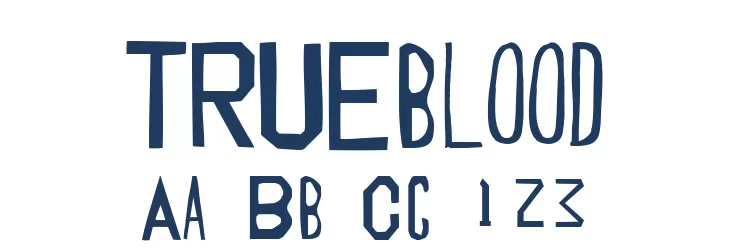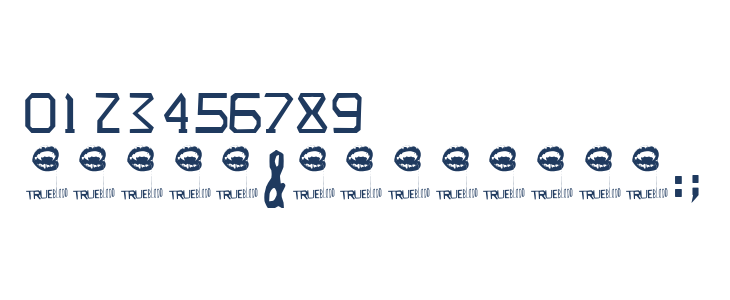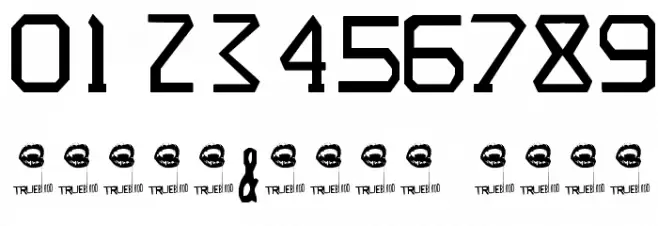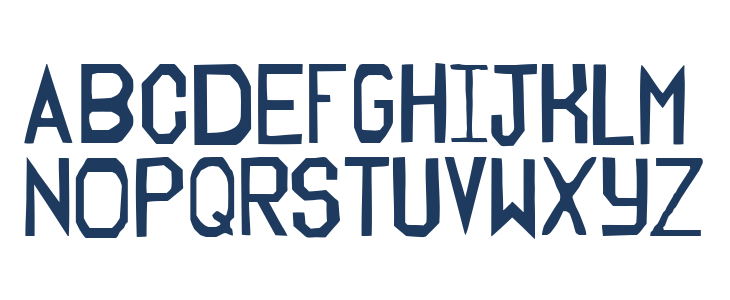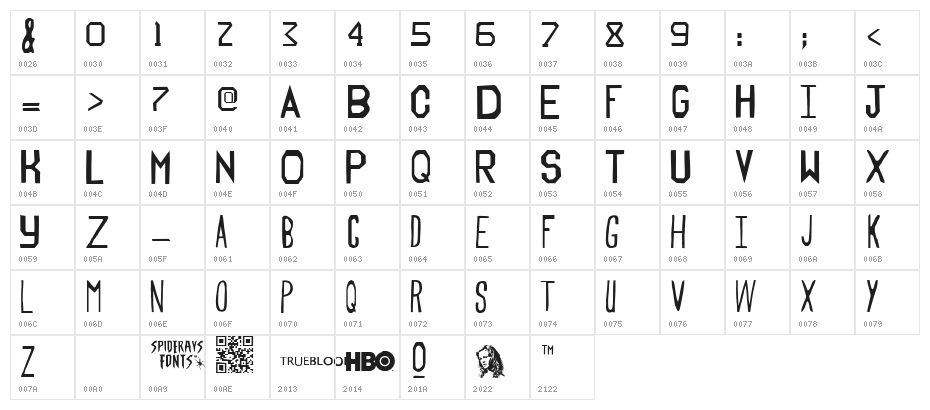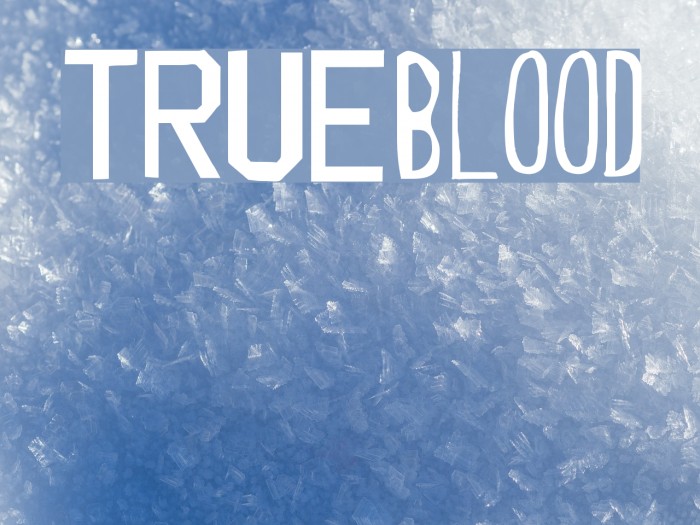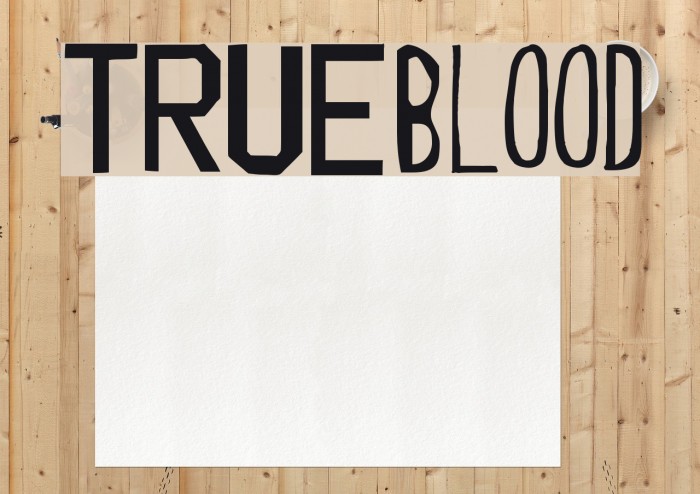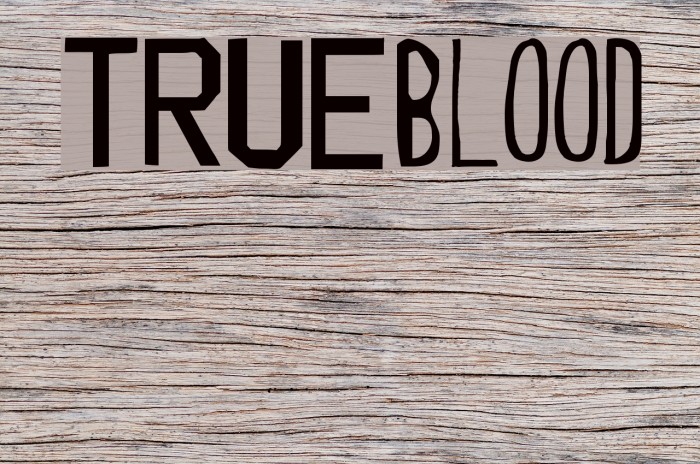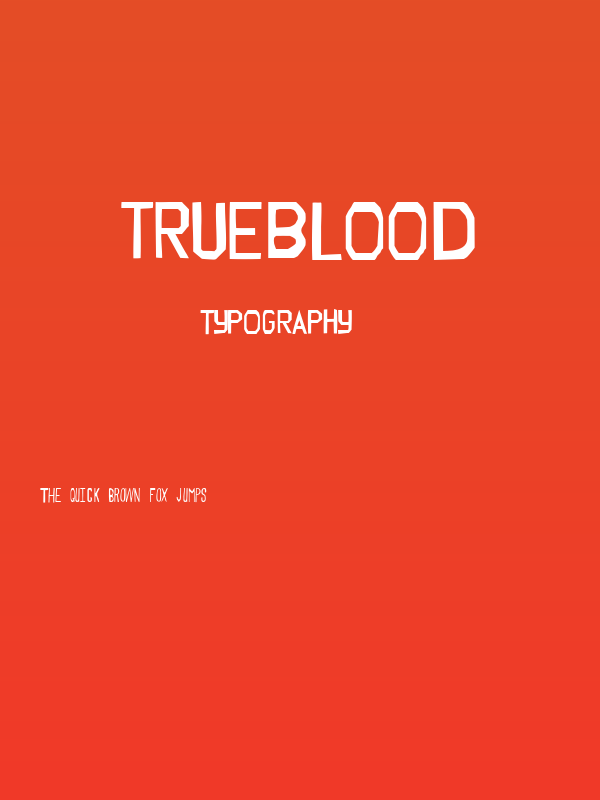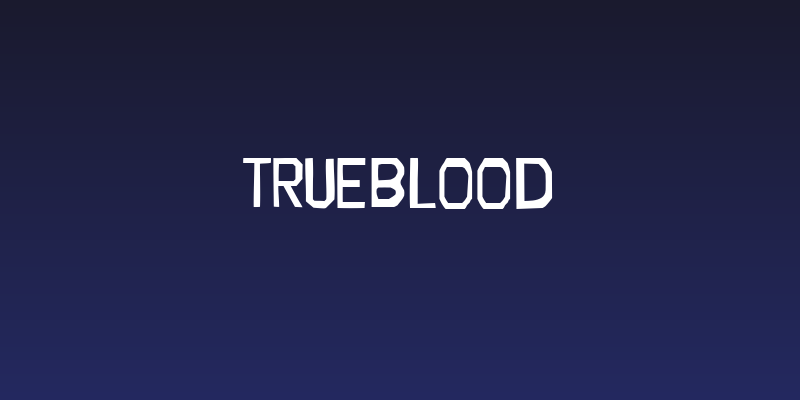
TRUEblood Font
TRUEblood Description
This font features a bold and edgy design with a distinctively modern and slightly gothic appearance. The uppercase letters are angular and geometric, with sharp edges and a strong presence. The lowercase letters maintain a similar style but with a slightly more fluid and less rigid structure, adding a unique contrast. The numbers are consistent with the uppercase style, providing a cohesive look across all characters. Special characters are creatively integrated, maintaining the font's overall aesthetic. This font's unique style makes it ideal for projects that require a bold and impactful visual statement.
| Proposed Projects | Ideal for branding, posters, album covers, and any project needing a bold, modern aesthetic. |